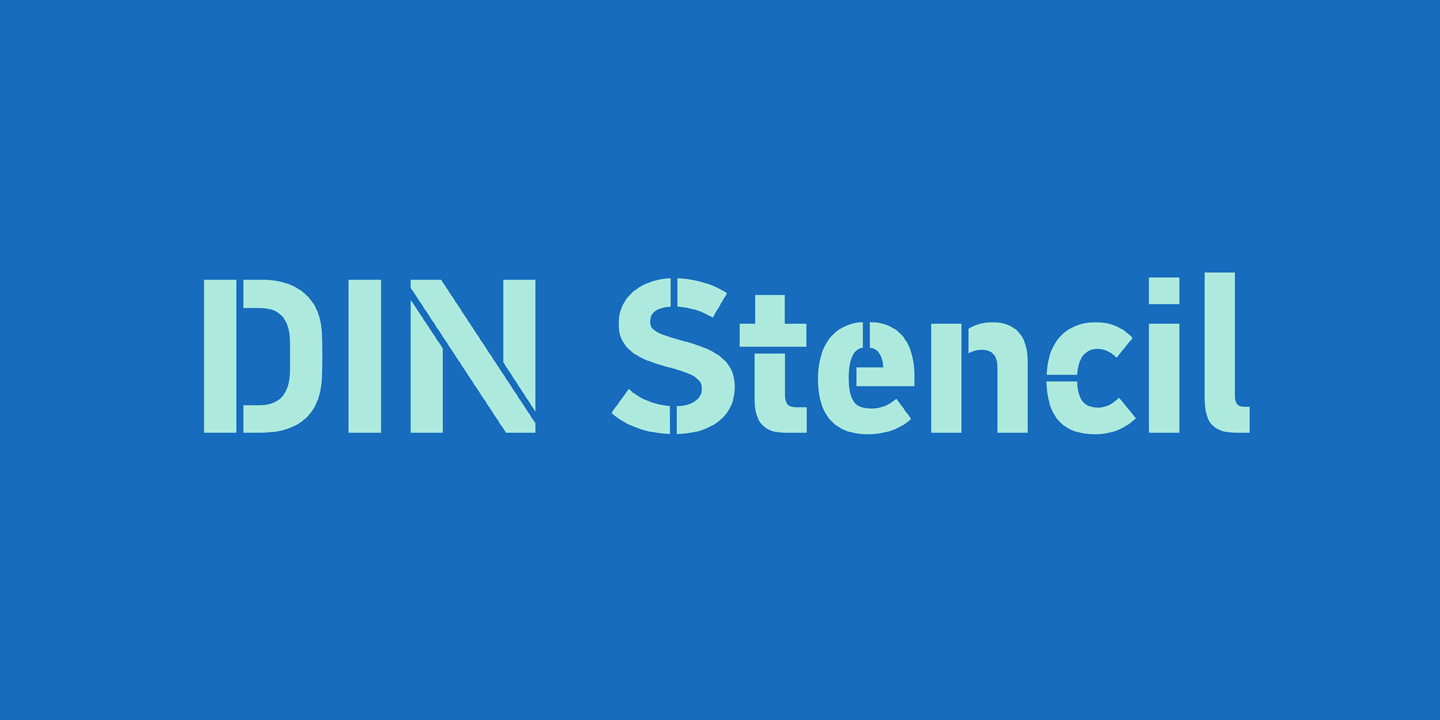
PF DIN Stencil Font is perfect for military equipment labeling, industrial shipping containers, warehouse identification systems, heavy machinery stenciling, construction site signage, tactical gear branding, government facility marking, transportation logistics graphics, cargo handling instructions, and robust industrial documentation. Its functional stencil character makes it ideal for projects requiring industrial durability and military precision authenticity.
What makes PF DIN Stencil Font exciting is its commanding embodiment of industrial functionality and military precision with stencil letterforms and systematic characteristics that capture the essence of tactical efficiency and industrial marking excellence. The font features precise cut-out patterns, utilitarian stroke construction, and functional character design that create authentic industrial atmosphere and military appeal. Its systematic personality brings reliability and clarity to contemporary designs while maintaining the durability essential for industrial communications and tactical presentations. The carefully engineered stencil elements ensure practical functionality while preserving the distinctive character that embodies the essence of industrial marking and military excellence.
PF DIN Stencil Font comes in multiple functional variations including Light, Regular, Medium, Bold, and Heavy styles. Each family member maintains the distinctive stencil character while offering comprehensive weight options for industrial typography and tactical brand system development. The complete font family includes alternate characters, industrial symbols, and stencil punctuation marks that provide essential tools for functional communication excellence and military presentation quality.
Whether you're developing industrial brands, military contractors, or tactical equipment projects, PF DIN Stencil Font Free Download provides the functional reliability needed to communicate with industrial audiences and military professionals who appreciate systematic design and tactical precision. The font's utilitarian appeal resonates with military personnel, industrial engineers, and logistics professionals seeking authentic tactical credibility and industrial sophistication. Its comprehensive character set includes military symbols and industrial marks, making it perfect for creating complete tactical brand systems and memorable industrial storytelling across diverse military applications and functionality-focused design projects that celebrate industrial durability and tactical excellence.